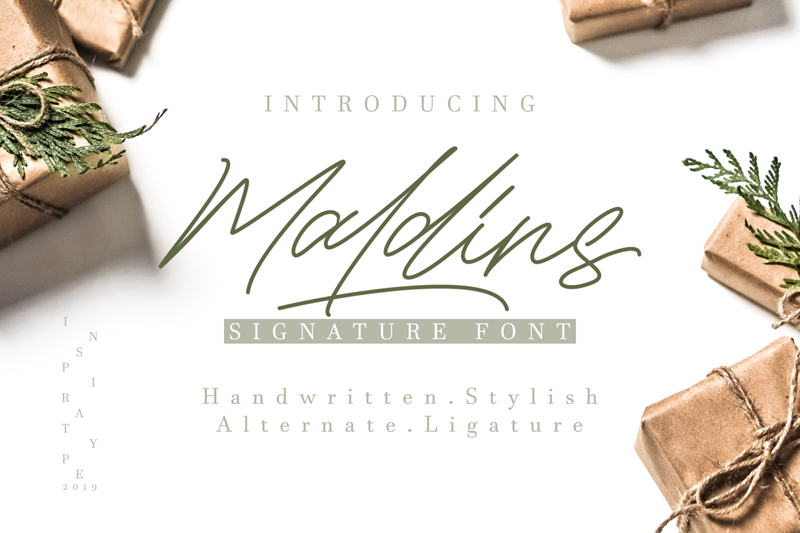
Preview and download Maldins Font. Created by InspiraType in Script Handwritten styles with Free for personal use license.
Font name: | Maldins |
Author: | InspiraType |
"Maldins" is a font display is made by hand, inspired by classic posters. comes with uppercase, lowercase, numerals, punctuations and so many variations on each character include OpenType alternates, common ligatures and also additional swash to let you customize your designs. Perfect to use for Logotype, Letterhead, Poster, Apparel Design, Label and etc. THIS IS DEMO VERSION. Support us with buy commercial use license! For Commercial Use, grab it fast on this link https://creativemarket.com/Inspiratype/3885328-Maldins-Stylish-Signature-Font check my another font on this https://creativemarket.com/Inspiratype Any question, drop me email to inspiratype@gmail.com (https://creativemarket.com/Inspiratype) Thanks |